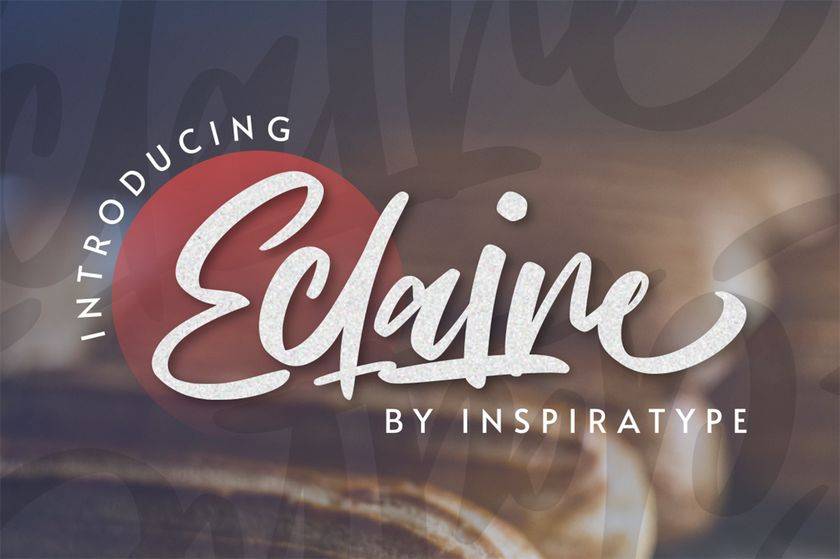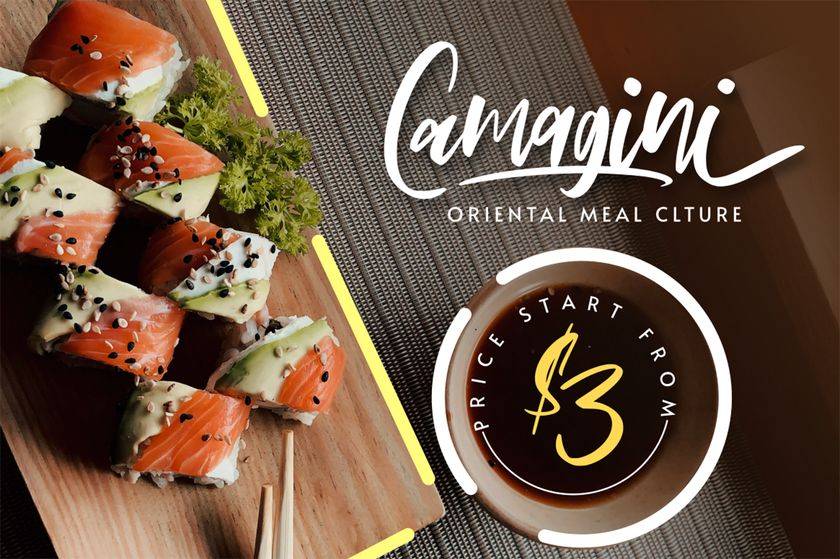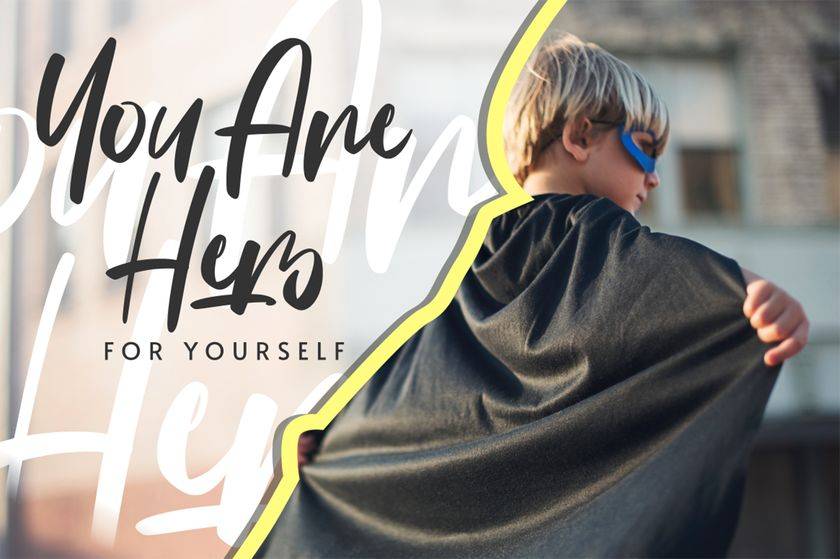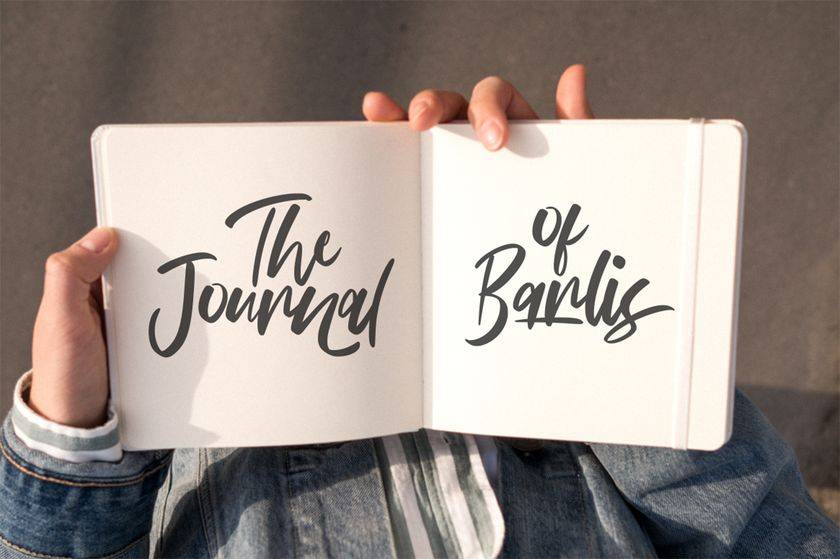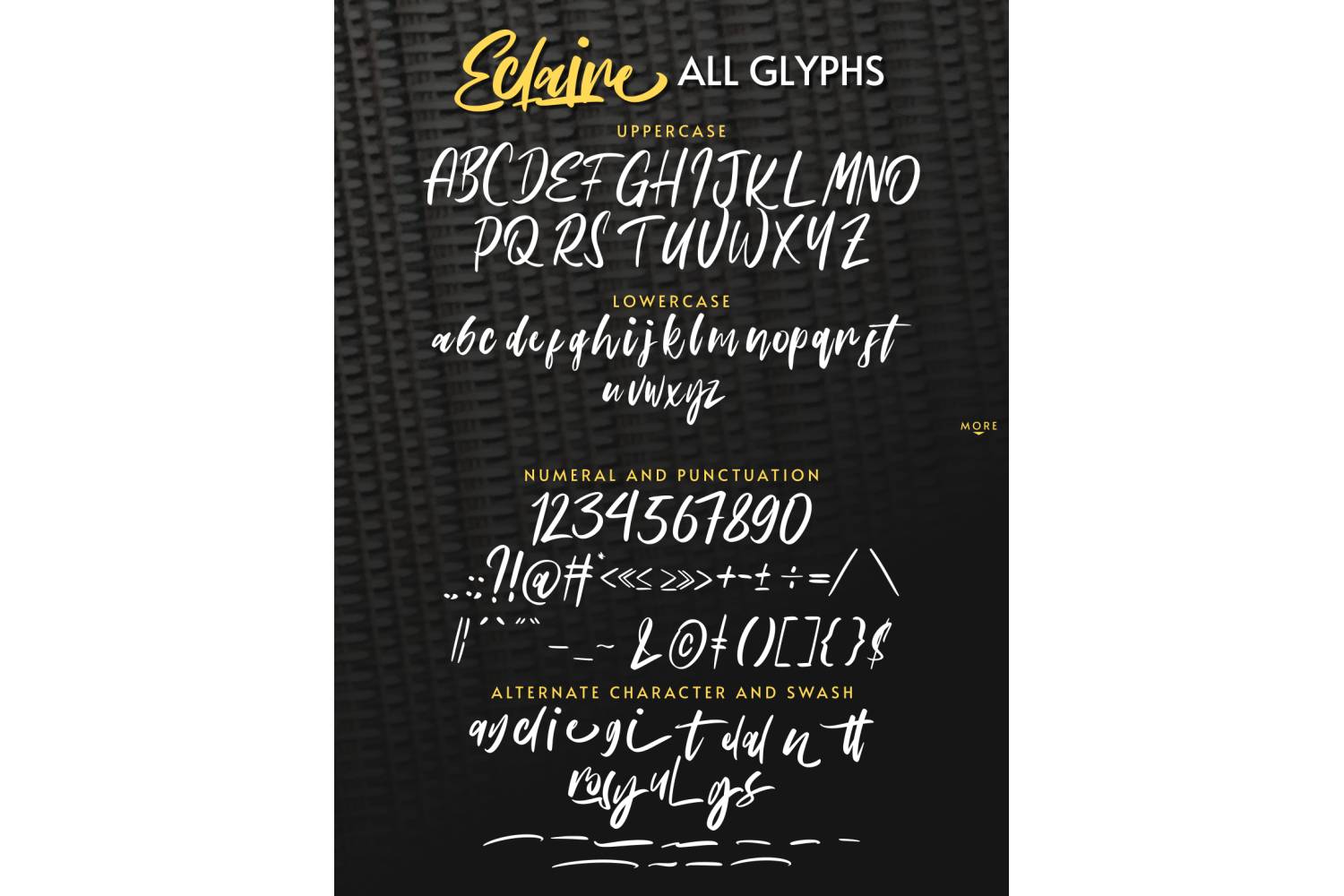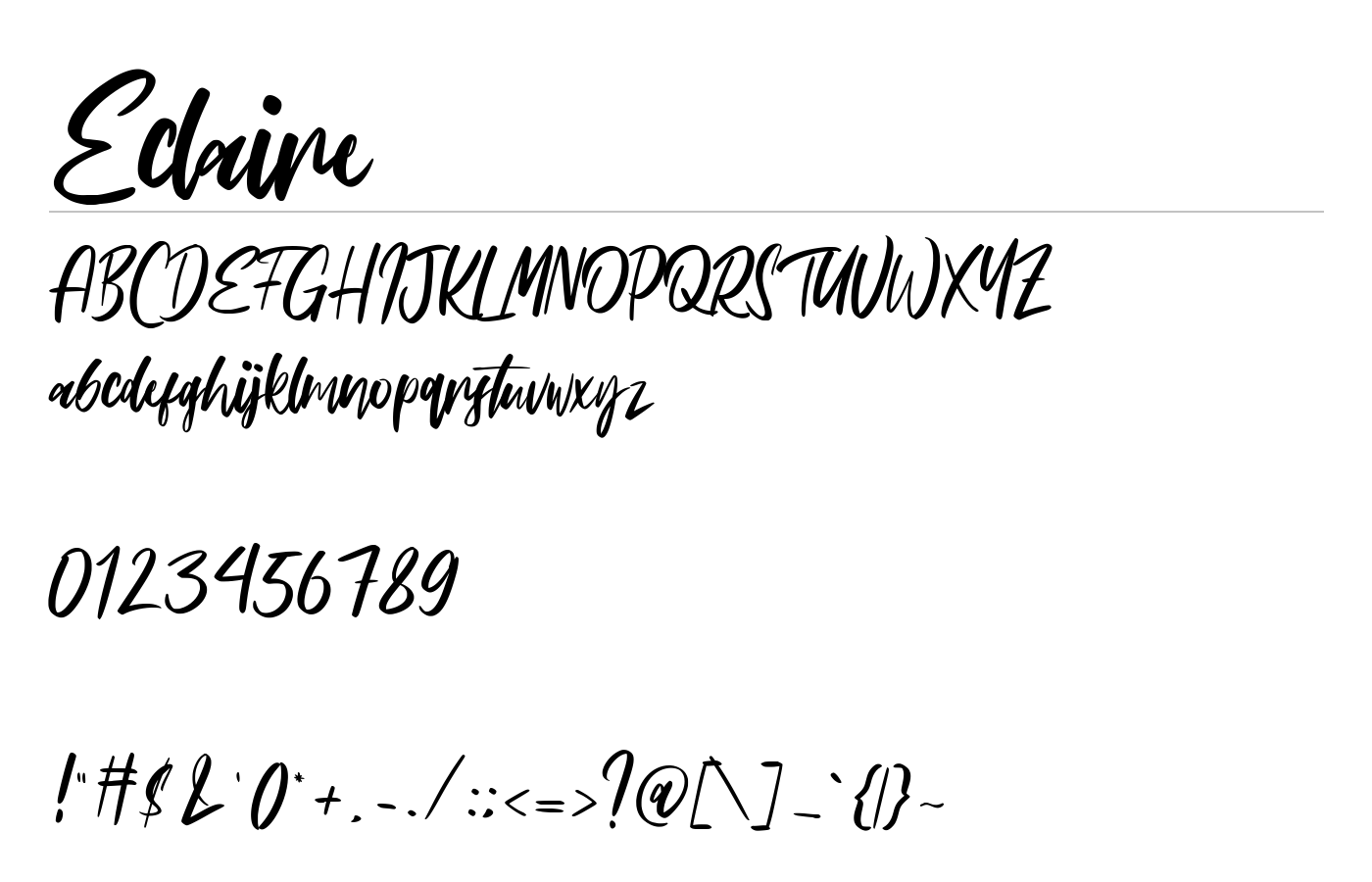
Eclaire is a stylish script font with a lively and organic feel, featuring smooth, flowing strokes and moderate contrast that give it a handwritten charm. Its upright, casual letterforms and clean curves make it perfect for adding a personal, elegant touch to branding, invitations, and creative projects while maintaining readability. This font shines in settings where a modern, friendly, yet sophisticated vibe is desired.
Eclaire Font
About Eclaire Font
| Font family | Eclaire Font |
| Designer | Inspiratype |